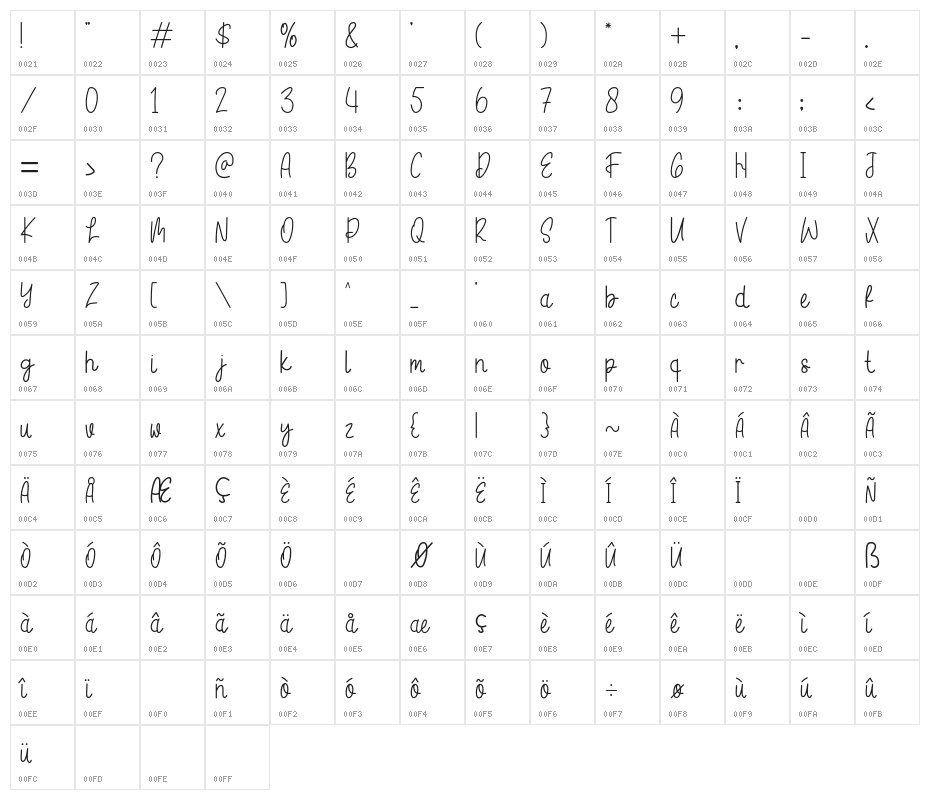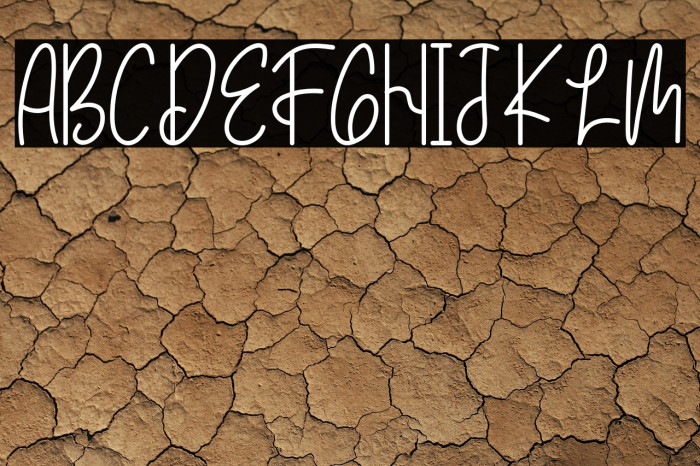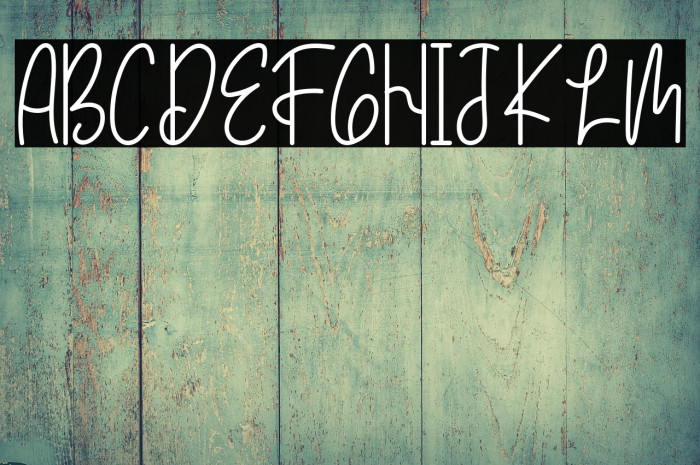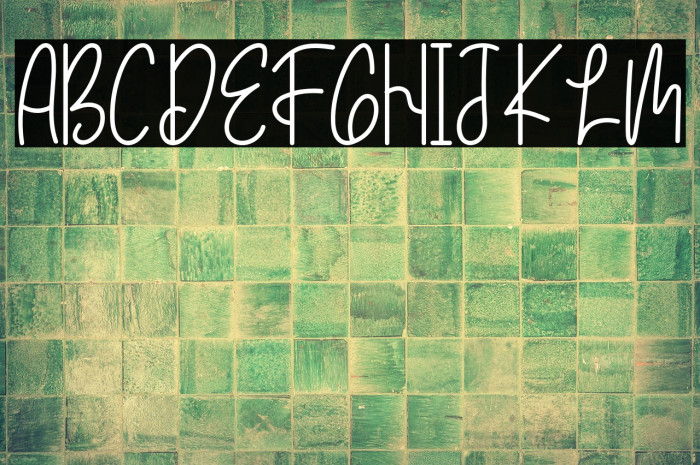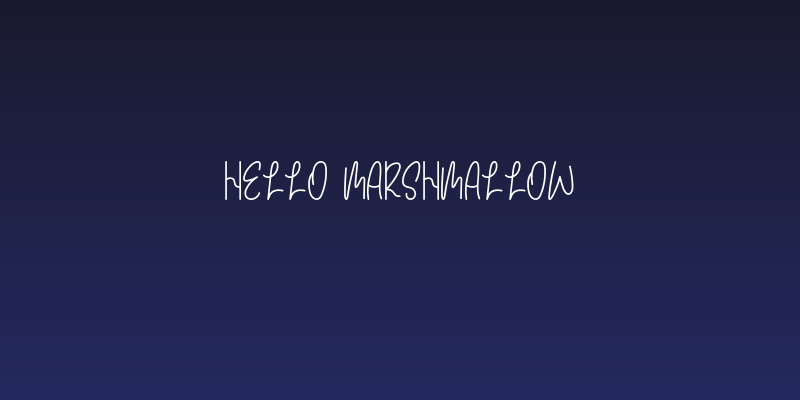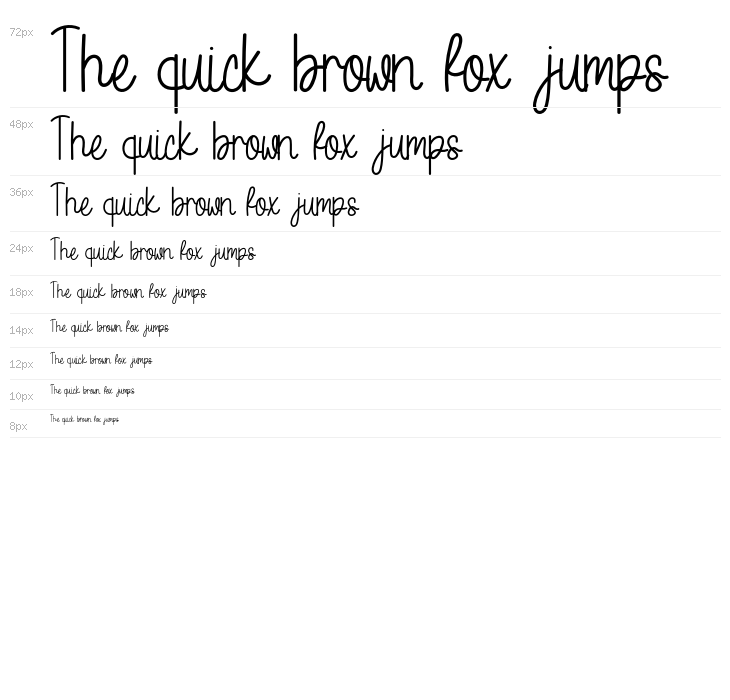
Hello Marshmallow Font
Hello Marshmallow Description
This playful and whimsical font features a handwritten style with smooth, flowing curves and a casual, friendly appearance. The letters are slightly elongated, giving them a unique and airy feel. The font maintains a consistent stroke width throughout, providing a clean and legible look. Its informal nature makes it perfect for projects that require a personal touch. The characters are well-spaced, ensuring readability while maintaining an artistic flair. This font is ideal for creative designs, invitations, and any project that seeks to convey warmth and approachability.
| Use Case | Headlines, Invitations, Creative designs |
| Proposed Projects | Ideal for invitations, greeting cards, personal branding, and creative design projects. |